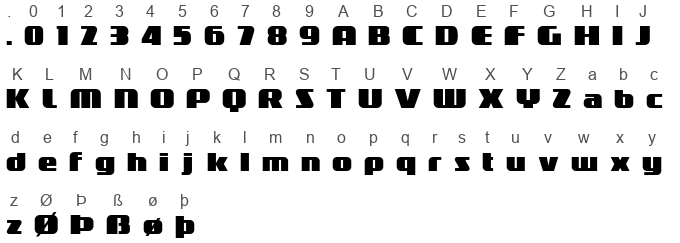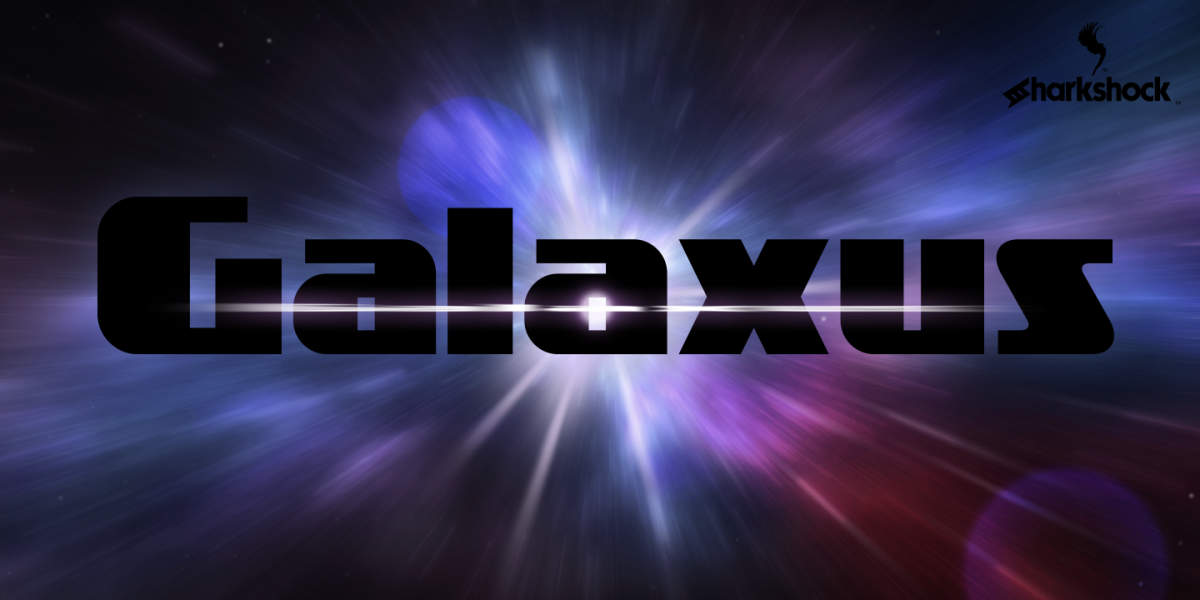
The Galaxus font is a bold display sans typeface that is strongly themed as futuristic, making it ideal for science fiction and space-related designs. Its characters are heavy and wide, with a unique stylistic feature where the diagonal strokes of letters like 'A', 'X', and 'V' meet the baseline, giving the font a distinct space-age look. It is characterized by its substantial visual weight and an initial-caps style.
Galaxus